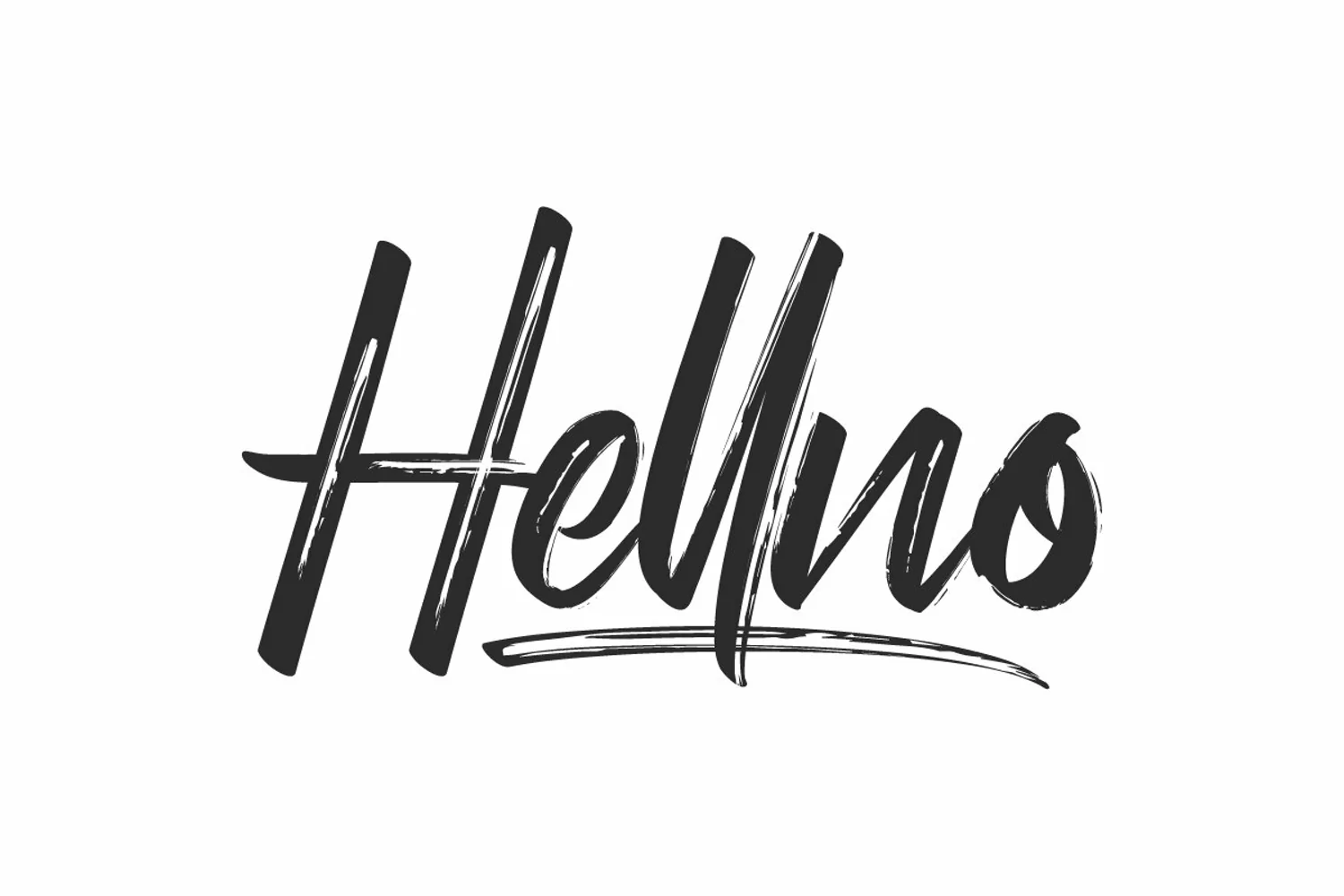
Hellno
Hellno Brush Font is a stunning textured brush hand lettering font originally made in 2020 by NihStudio. On the package you will get :
Handcrafted here in our Studio , Indonesia. Hellno will be great for any projects including : branding, logo, stationery, business card, signage, flyer, brochure etc.
The theme style of the Hellno is unique, mysterious, dark, horror, movie, sporty, gamer, motorcycle brush style. The font will be match for this typeface: events, artist, musician, cafe, coffee, promotion, etc
Hellno Dry Brush Font had been tested Work on PC & Mac. This font has a stunning characters set, perfectly managed with well spaced and kerning. Accessible in the Adobe Illustrator, Adobe Photoshop, Adobe InDesign, even work on Microsoft Word. It’s also PUA Encoded Characters – Fully accessible without additional design software.